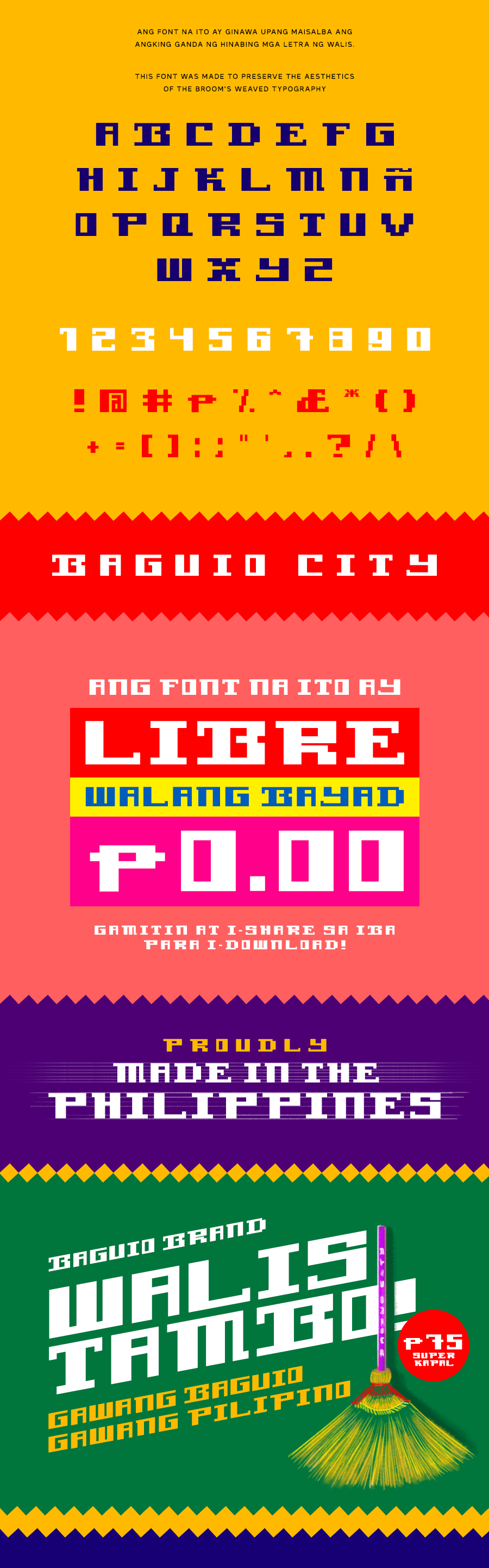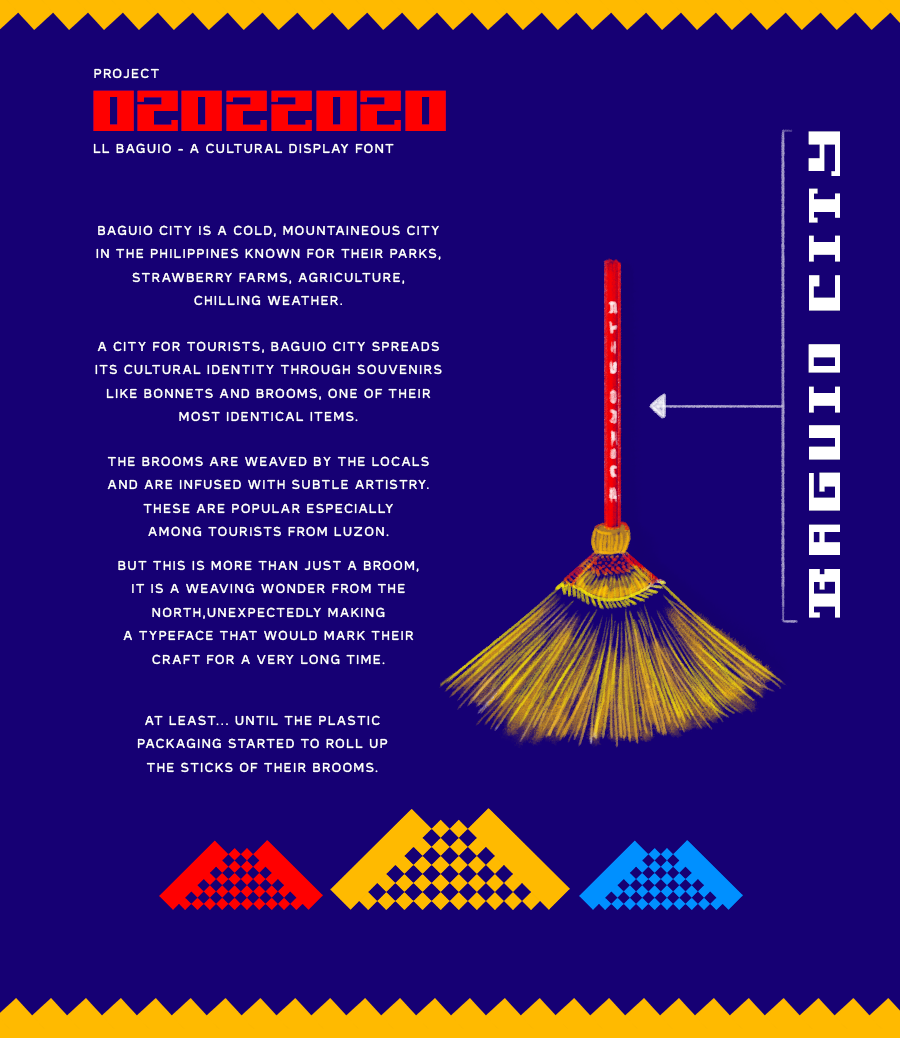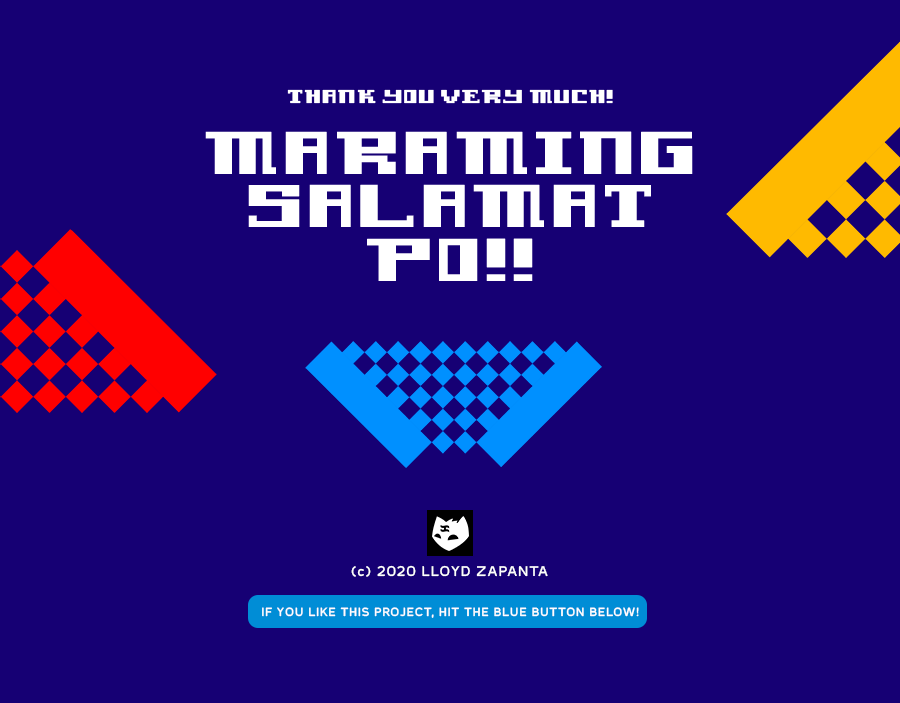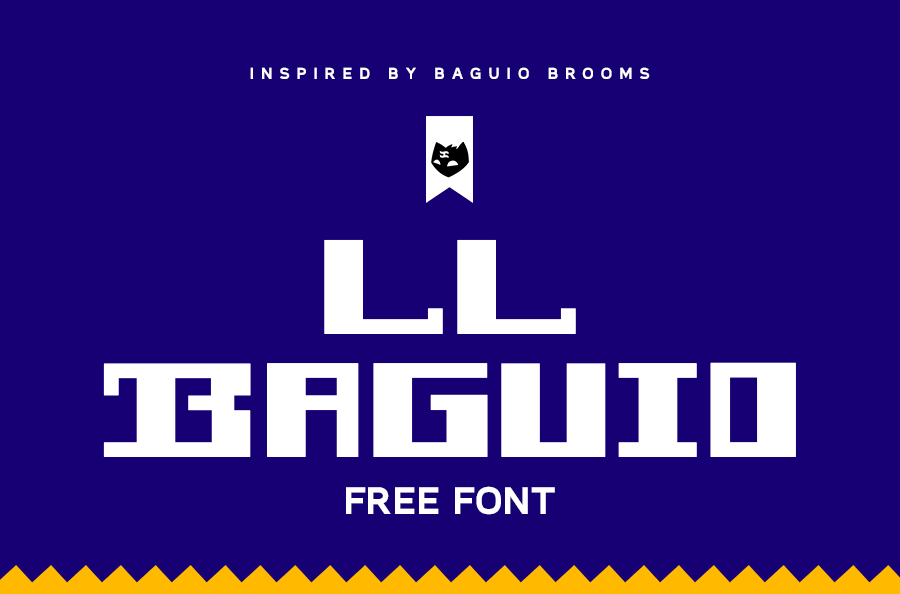
LL Baguio
Inspired by the weaved letters of a broom from Baguio City, Philippines, LL Baguio aims to rekindle the type digitally, as most brooms are now using ready-made, plastic wraps instead of the traditionally weaved ones.